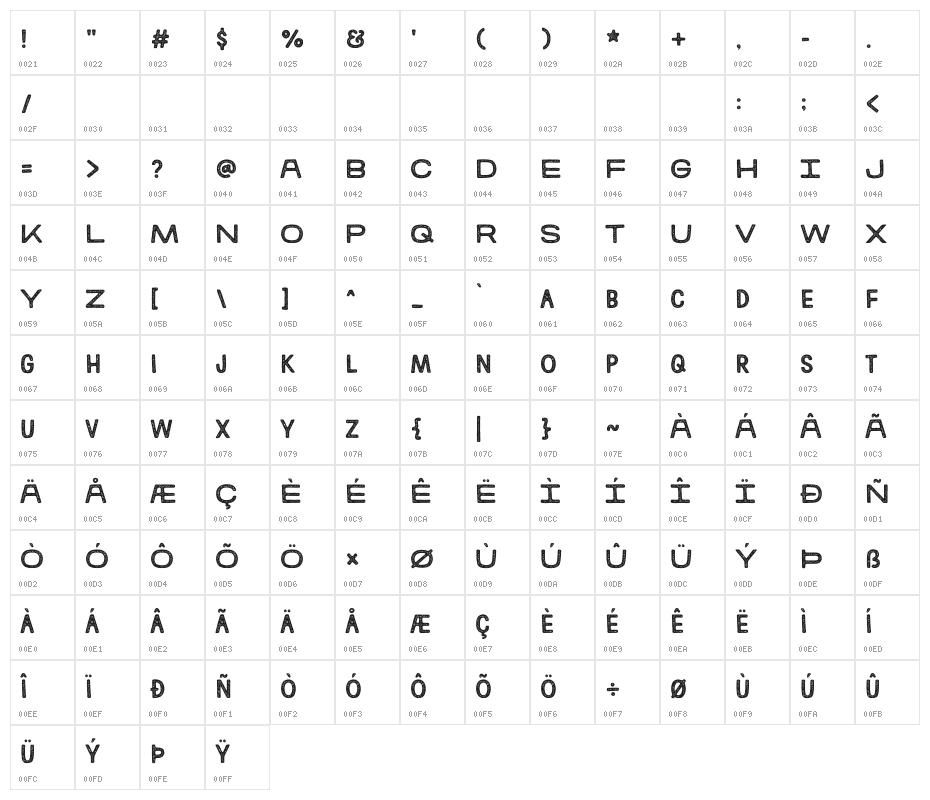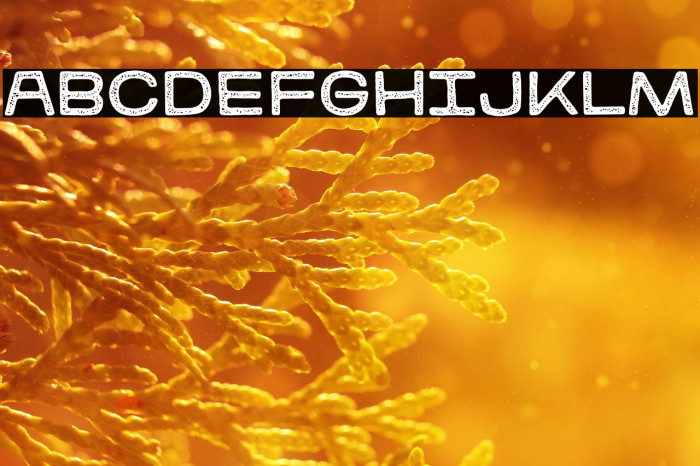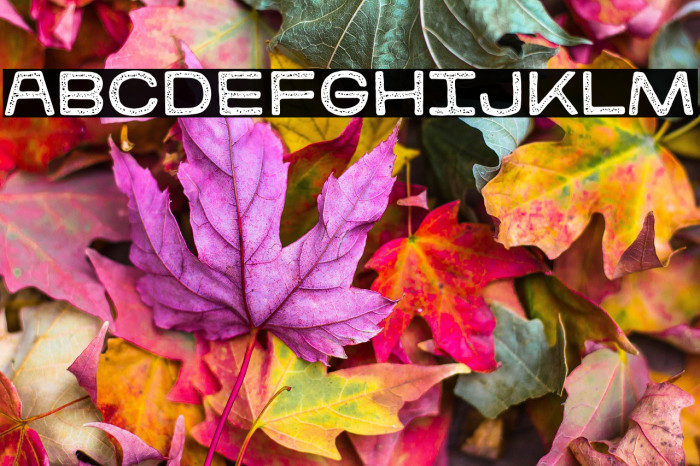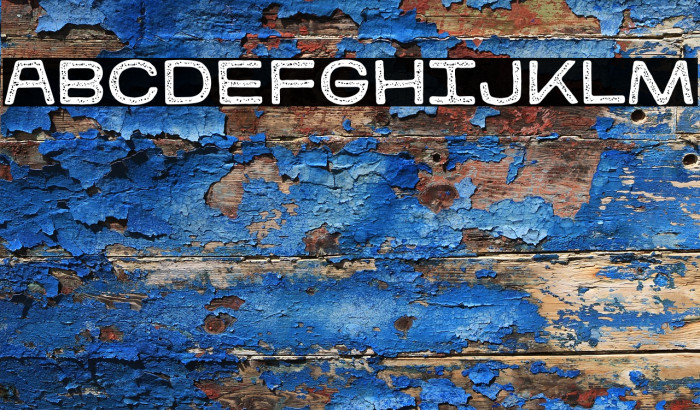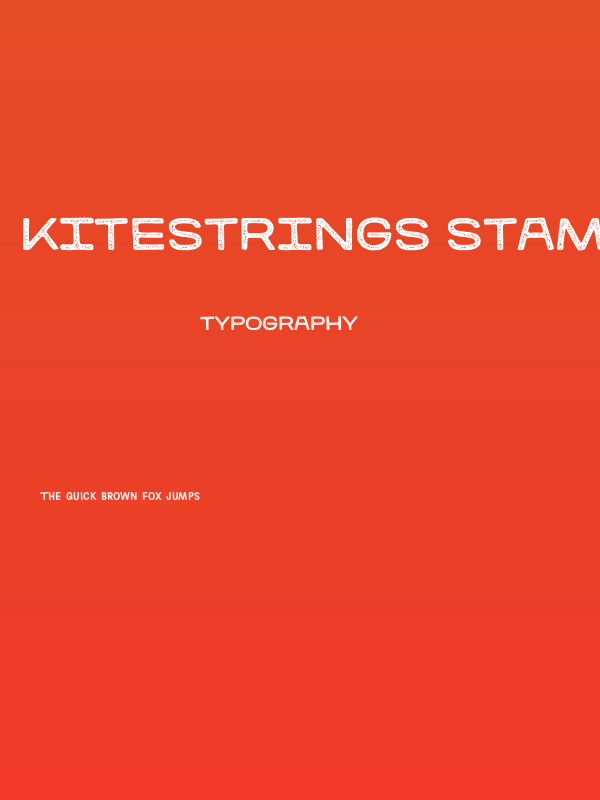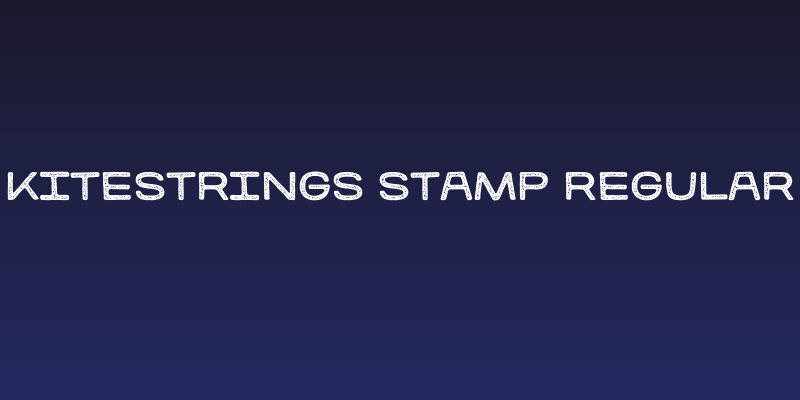
kitestrings stamp Regular Font
kitestrings stamp Regular Description
This font features a playful, hand-drawn style with a textured, stamp-like appearance. The uppercase letters are bold and rounded, with a slightly uneven edge that adds to the casual, handcrafted feel. The texture within each character resembles a speckled or distressed pattern, giving it a unique, vintage look. The font maintains a consistent weight throughout, with medium contrast in stroke thickness. The characters are evenly spaced, providing a balanced and readable appearance. This font is ideal for projects that require a touch of whimsy and creativity, such as children's books, greeting cards, or playful branding.
| Overall Style | Vintage, Decorative |
| Proposed Projects | Ideal for children's books, greeting cards, playful branding, and creative projects. |